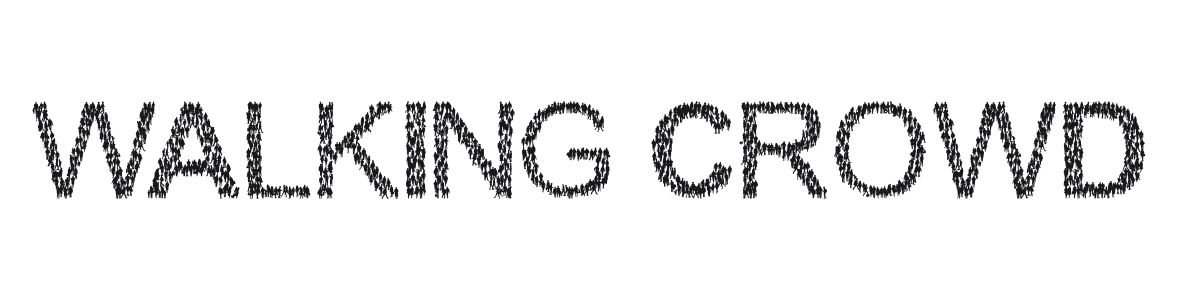
Walking Crowd
Walking Crowd is a novelty display face by Véronique Callait where each uppercase letter is constructed from tiny silhouettes of people, giving the type a dense, textured quality that only reveals itself up close. It's quirky and undeniably artistic, the kind of font that works best at large sizes on posters, editorial spreads, or gallery pieces where viewers have a moment to appreciate the detail. Strictly decorative, but memorable when used in the right context.